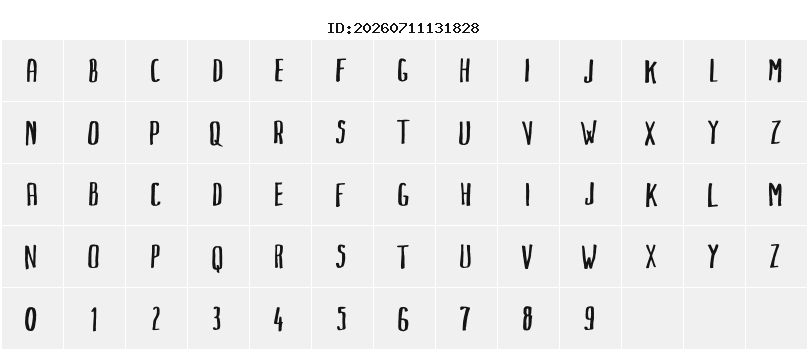
Markus Ink Preview
• Font Name: Markus Ink
• Full Font Name: MarkusInk
• PostScript Name: MarkusInk
About Markus Ink.otf
Markus Ink.otf is a modern, elegant sans-serif font designed for ultimate readability and visual harmony. Perfect for branding, headlines, web design, and print materials.